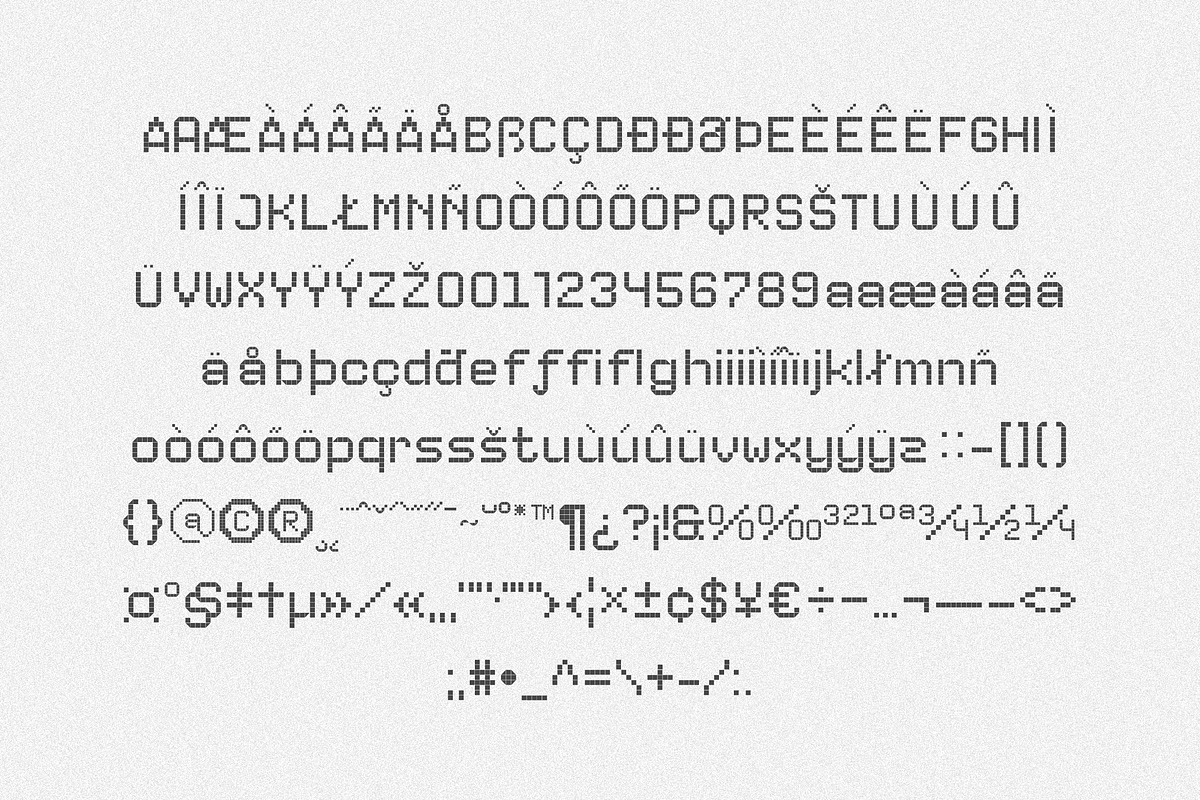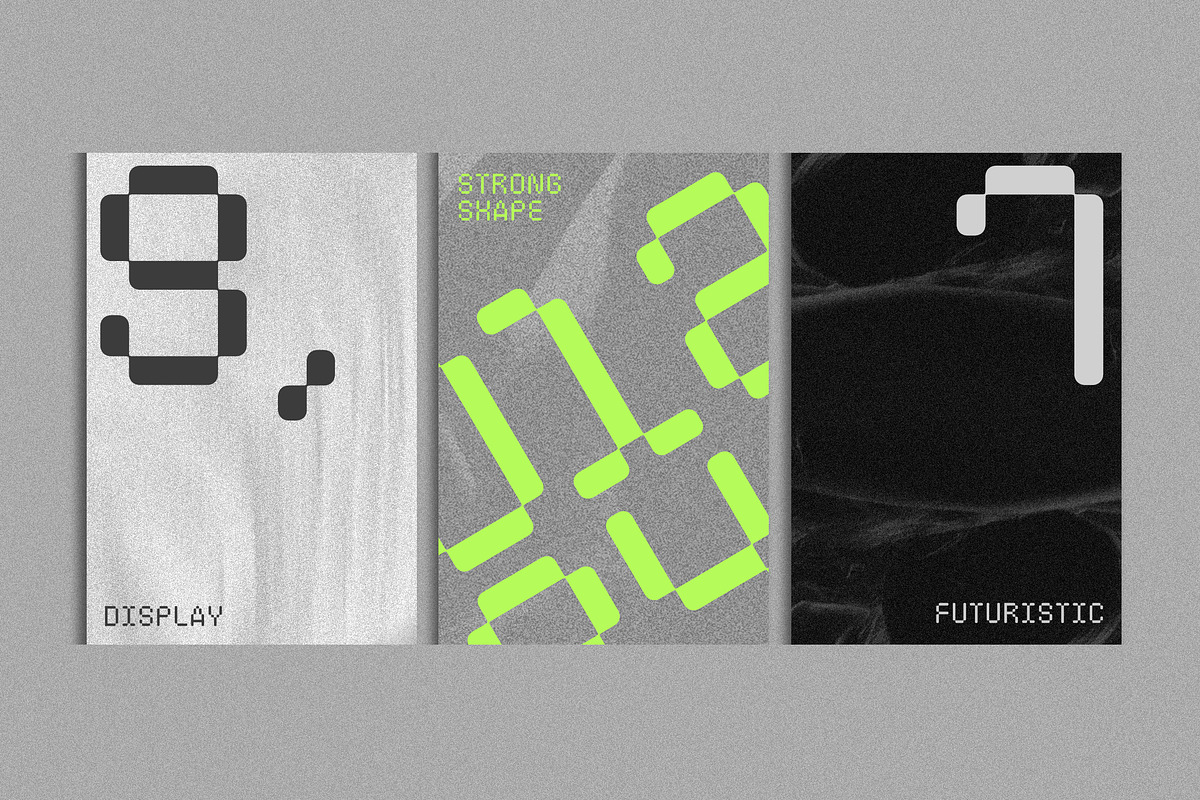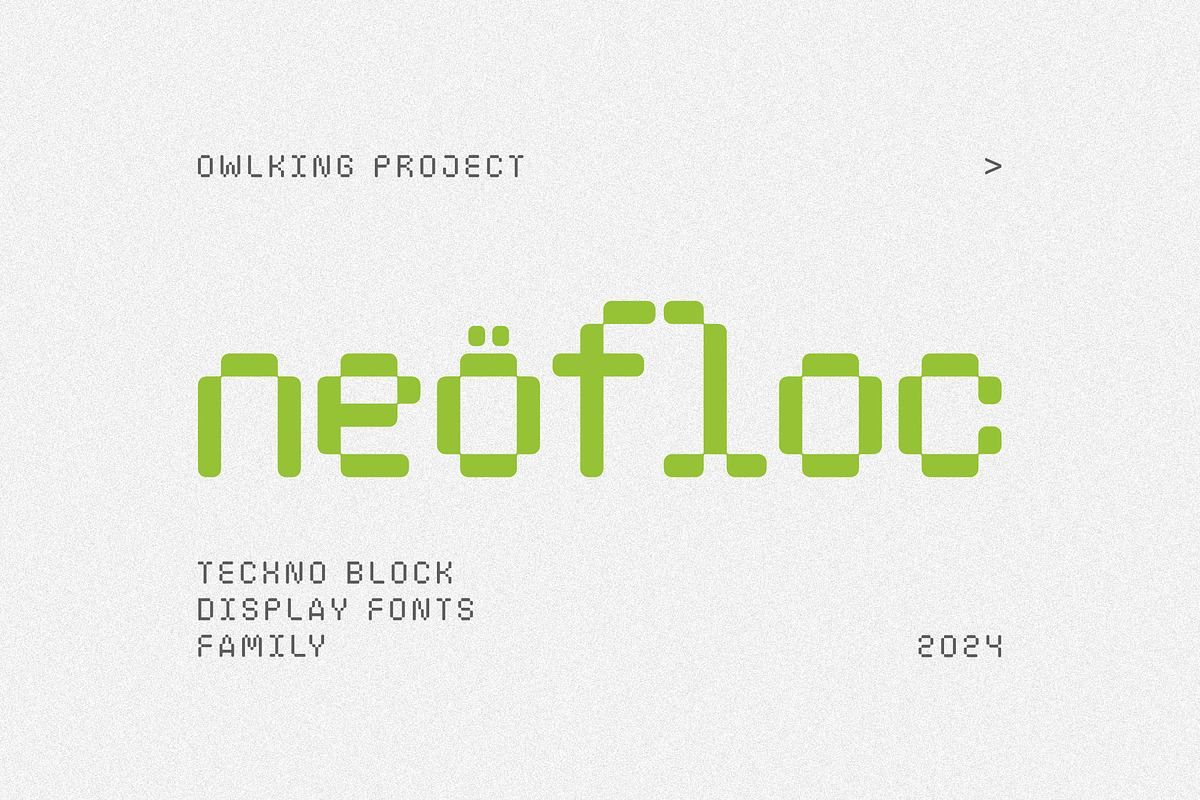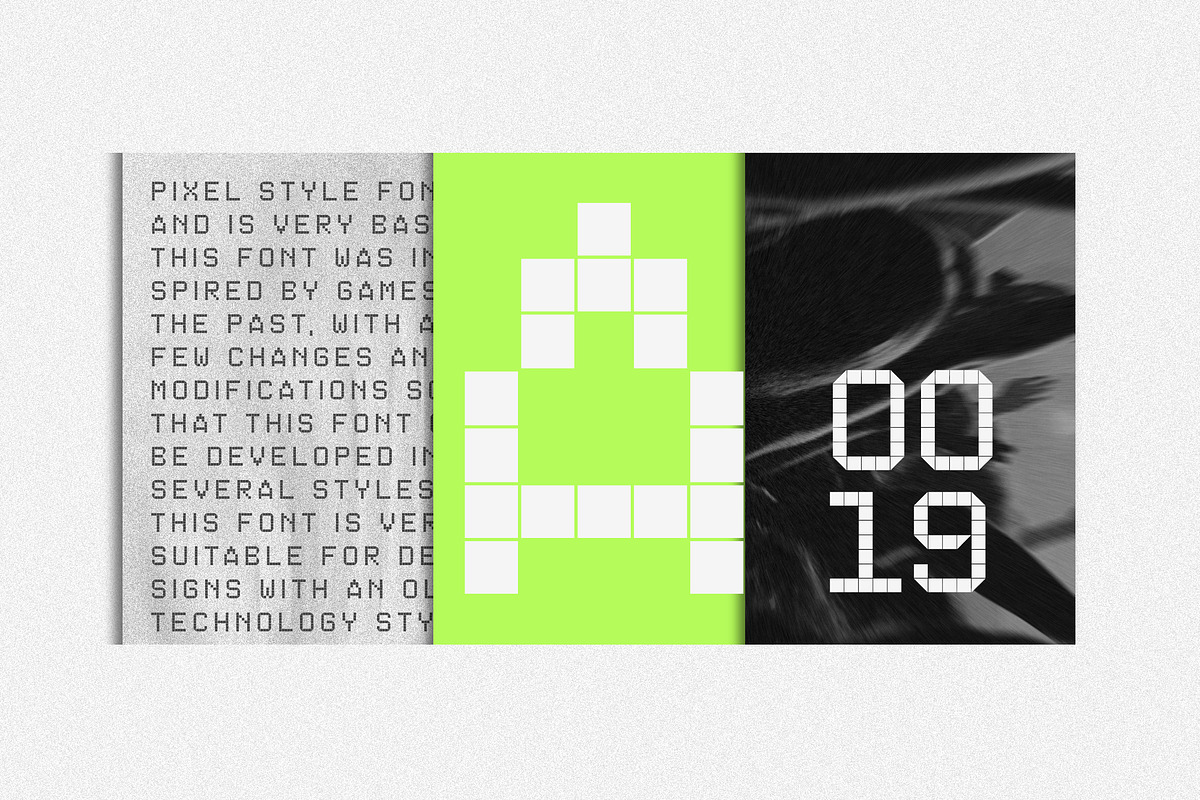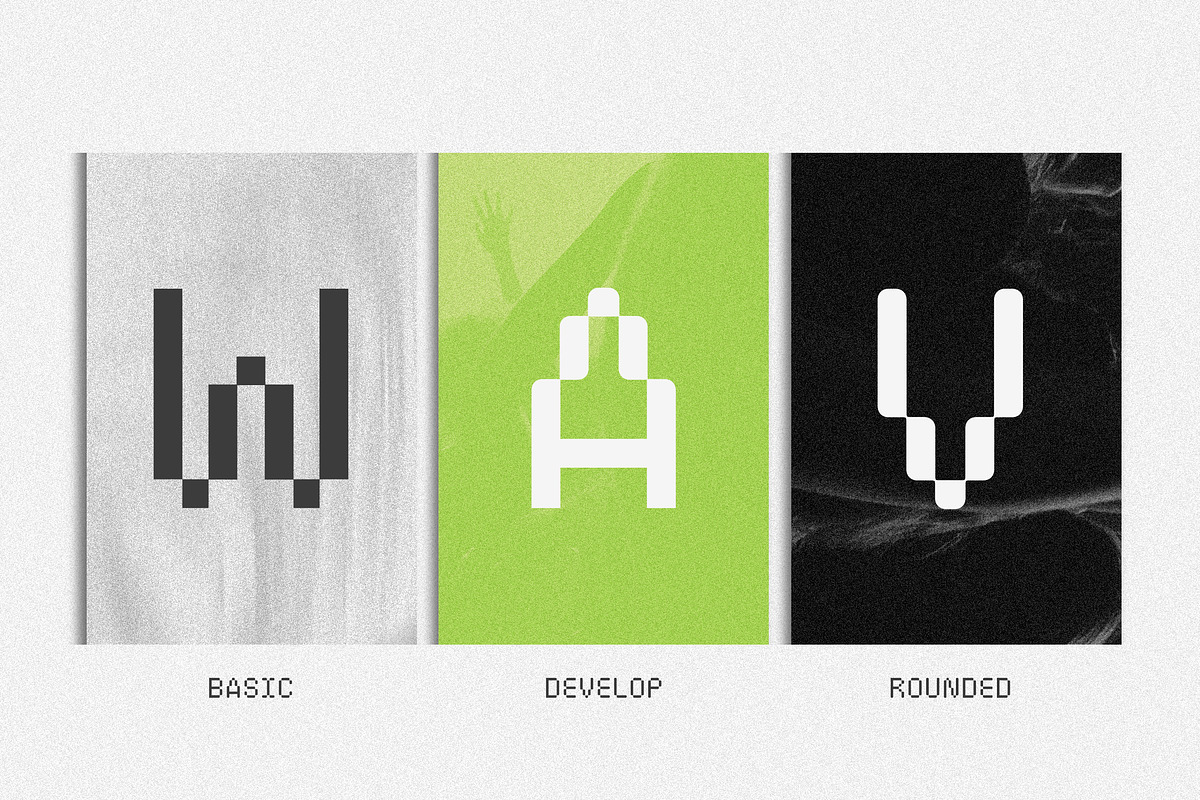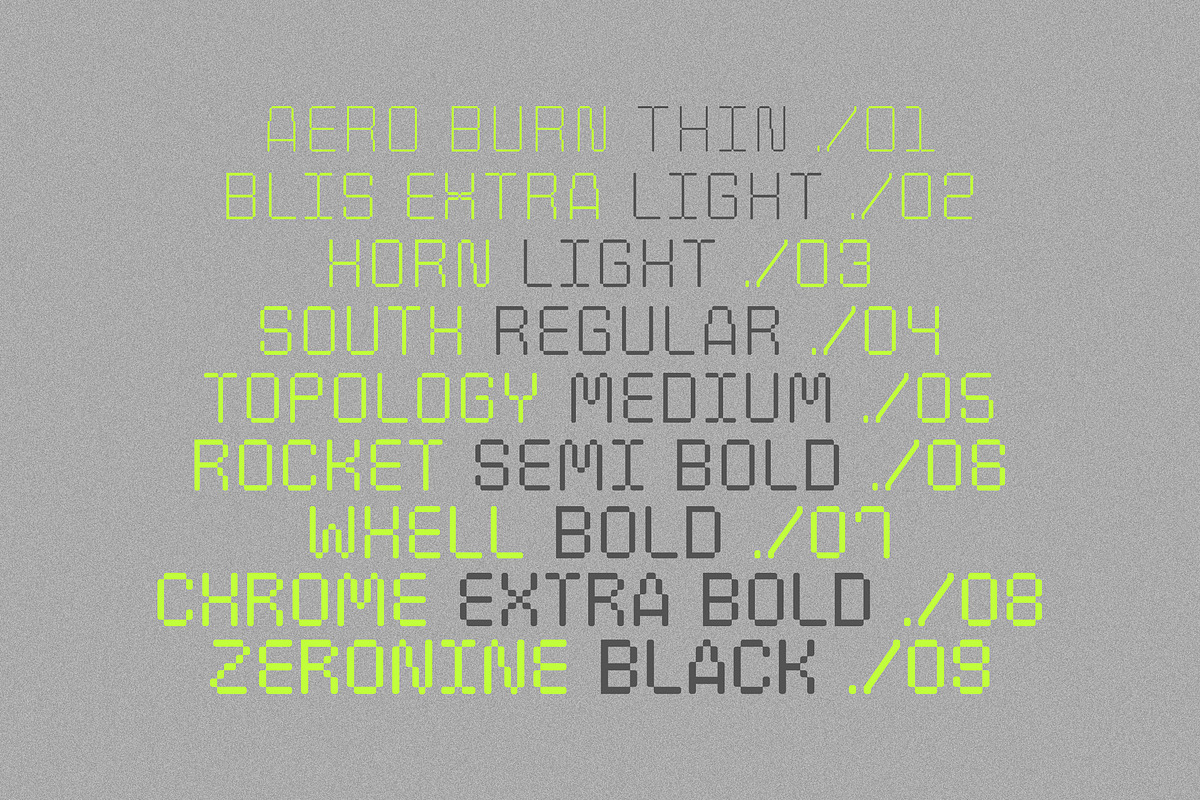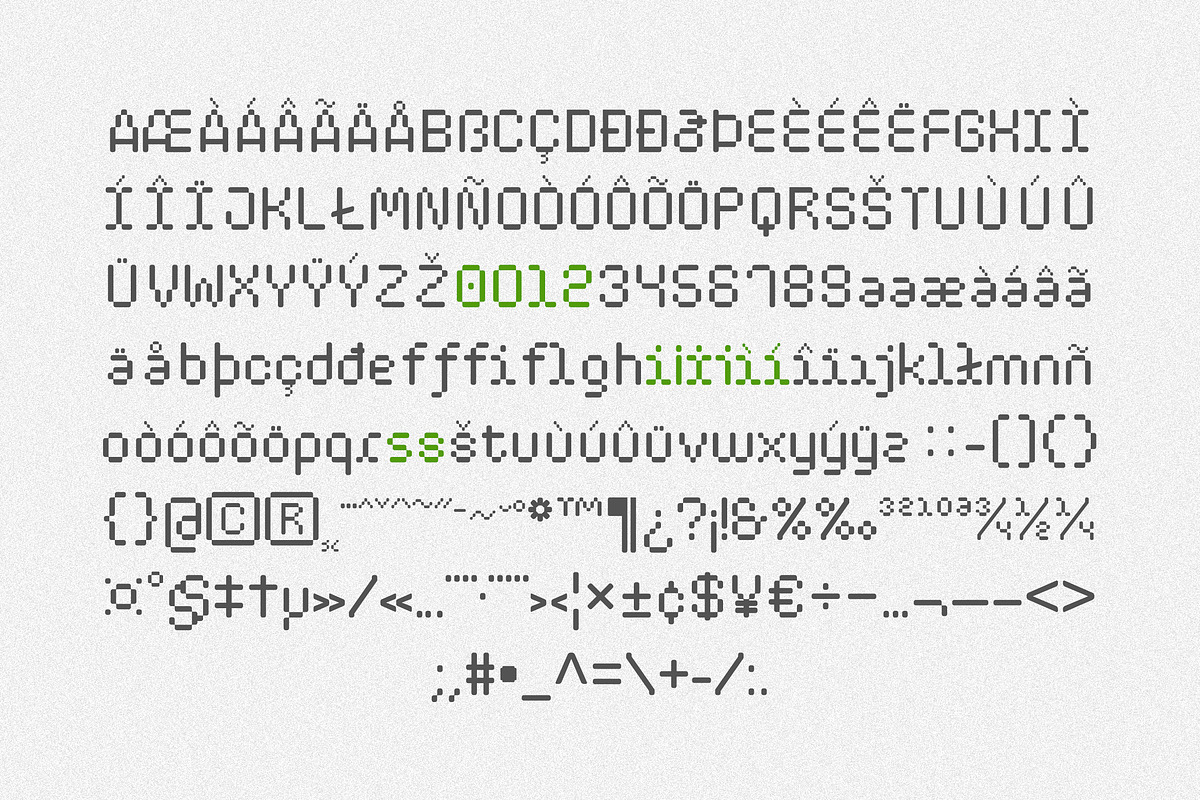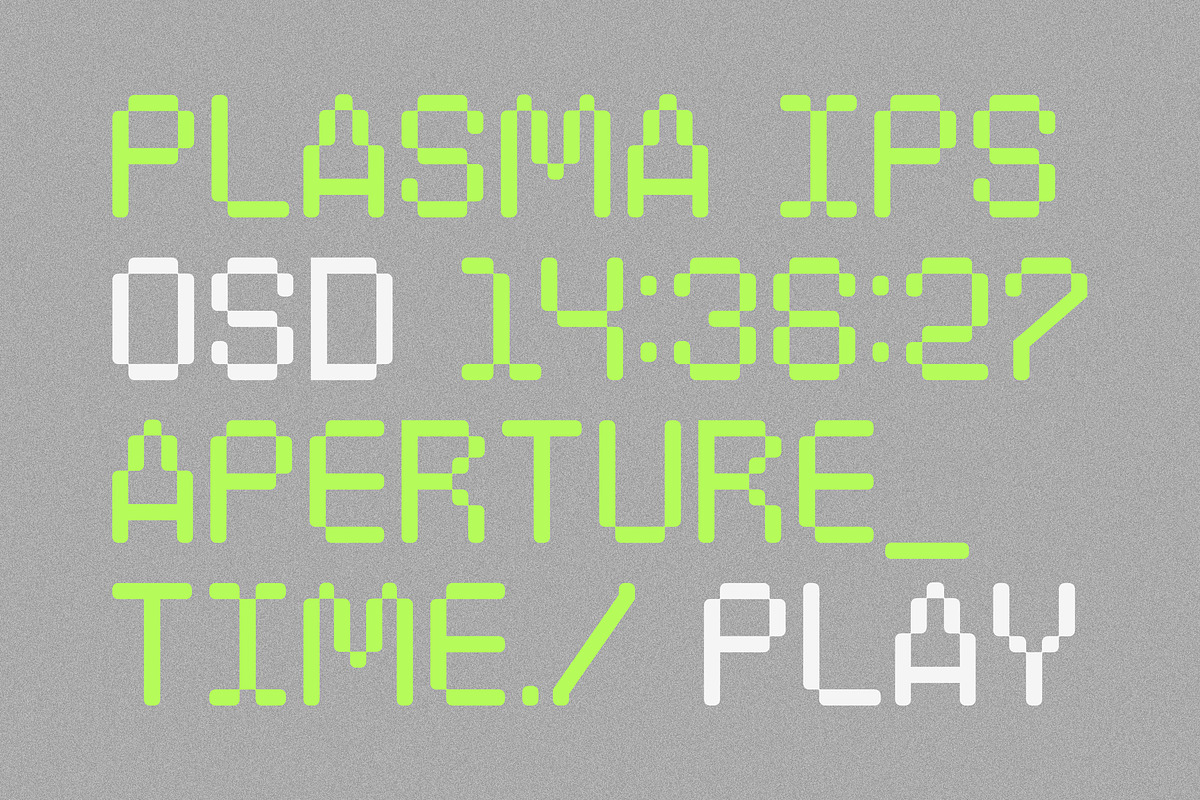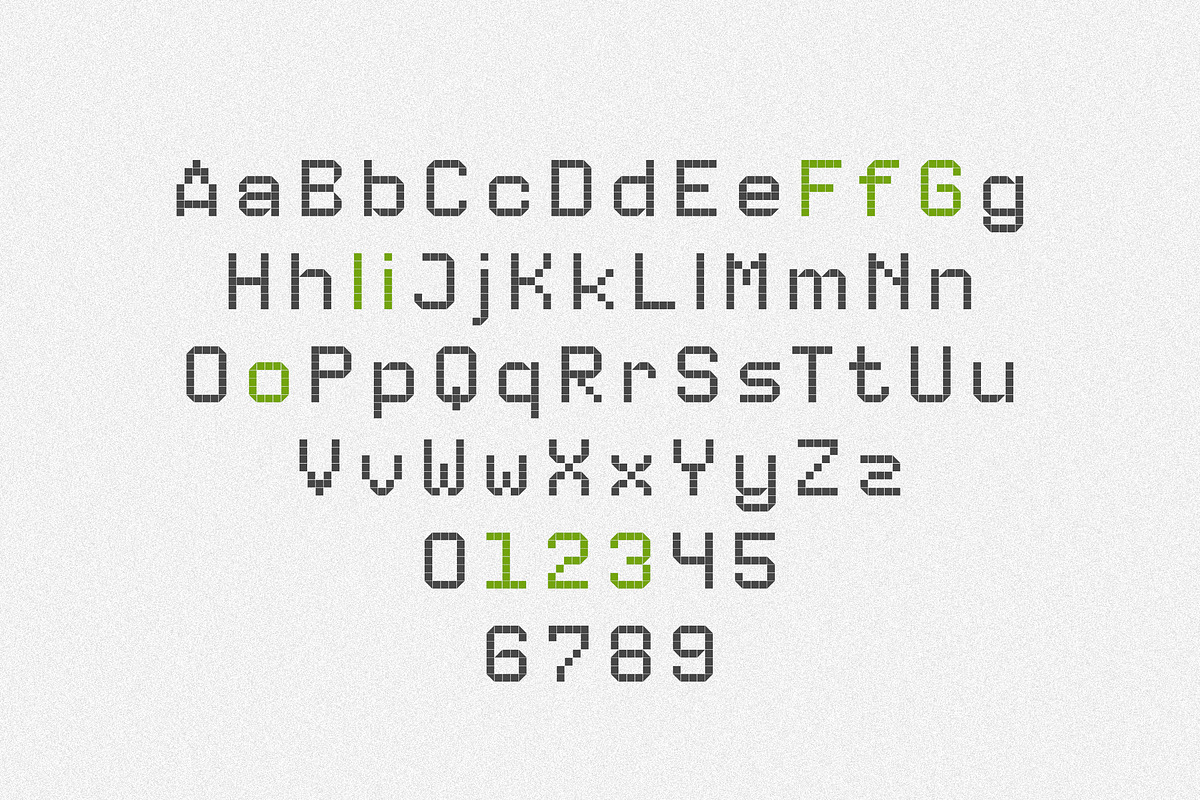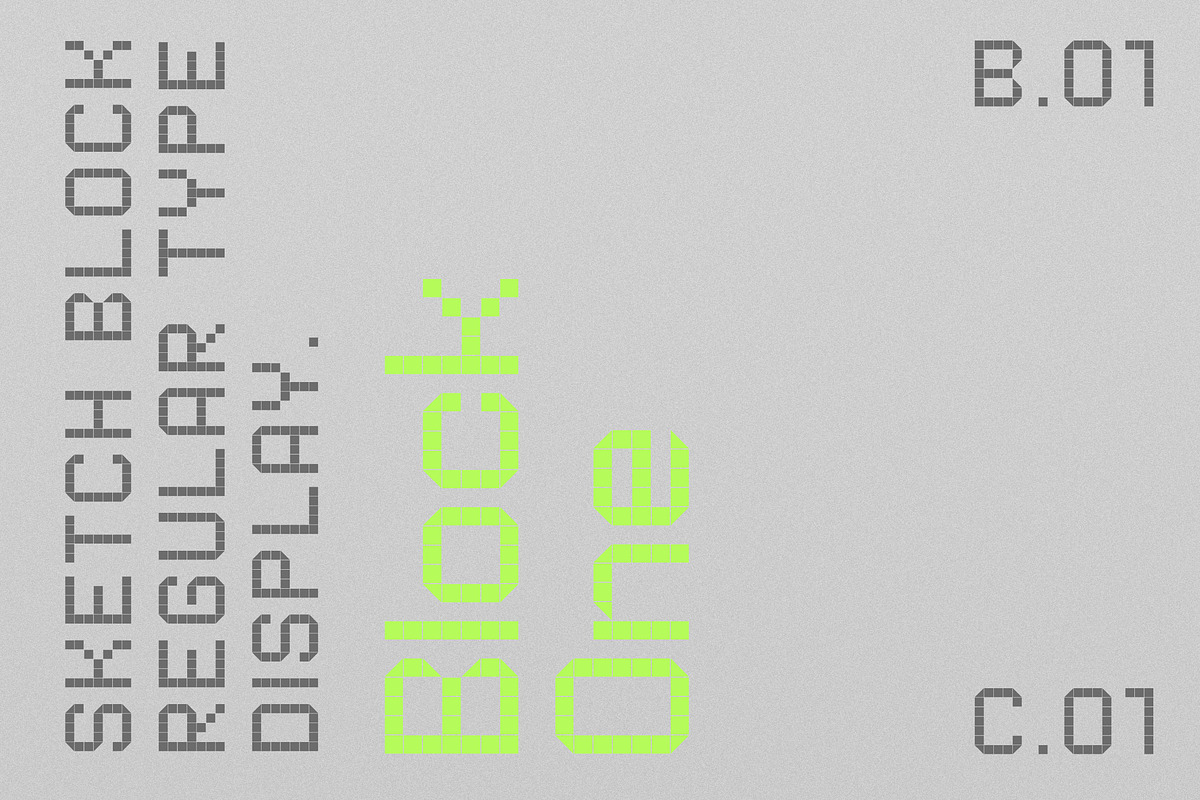
Neofloc
Neofloc is a pixel-style font, this font was inspired by games in the past, with a few changes and modifications, this font can be developed into several styles, this font is very suitable for designs with an old technology style or a cheerful style. works well in bold for logos, titles, or use on packaging. Happy designing.